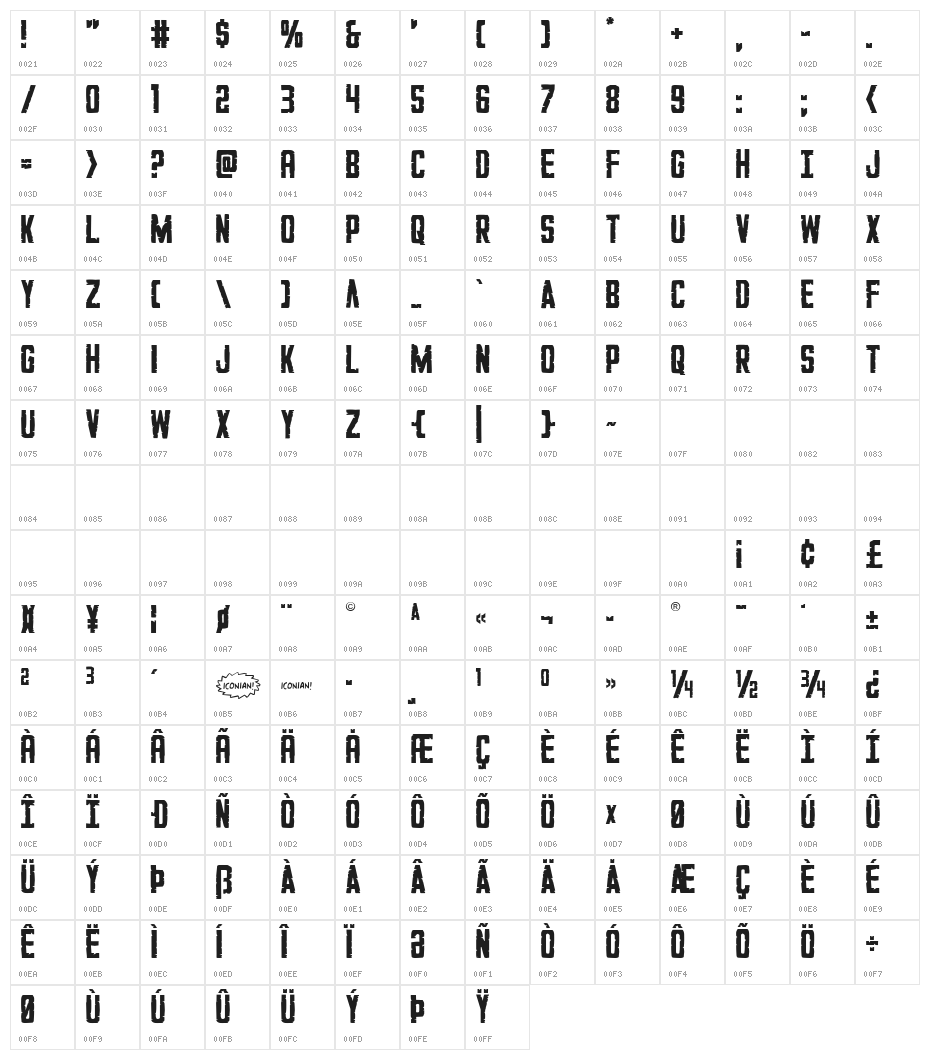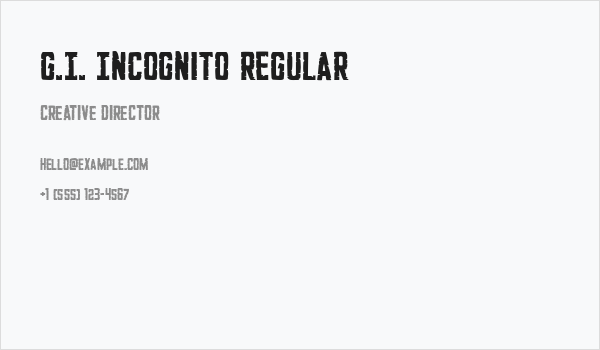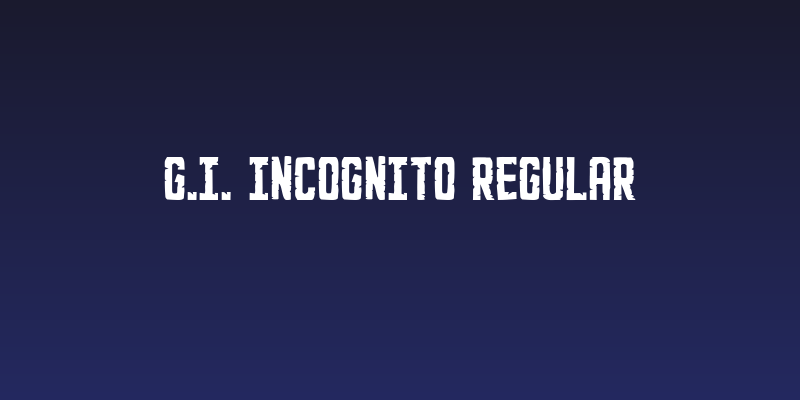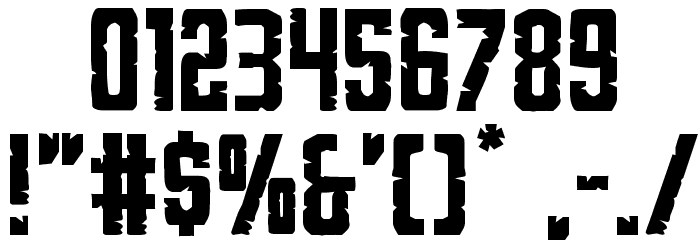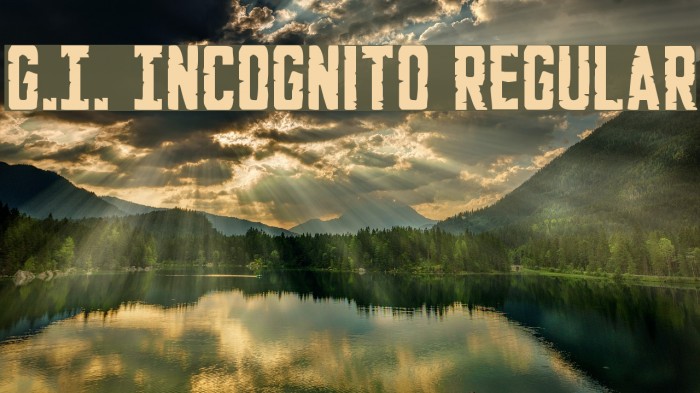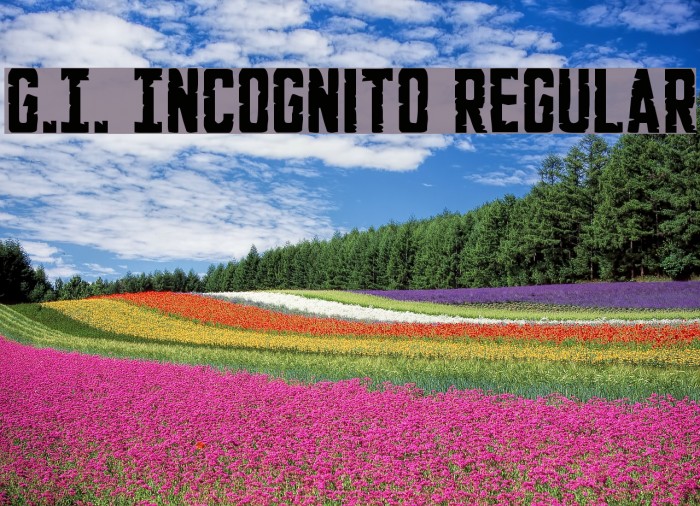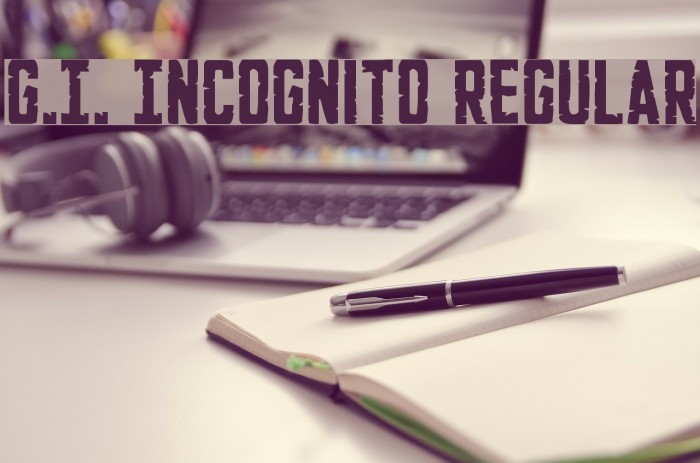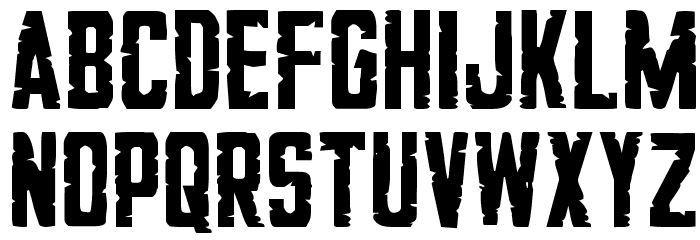
G.I. Incognito Regular Font
G.I. Incognito Regular Description
This font features a bold and rugged design, characterized by its distressed and eroded appearance. The uppercase letters are blocky and robust, with irregular edges that give a worn and weathered look. The numerals and special characters follow the same distressed style, adding to the overall gritty aesthetic. This font is perfect for projects that require a strong, impactful presence with a touch of vintage or industrial flair. Its unique texture makes it stand out, ideal for creating eye-catching headlines or logos.
| Overall Style | Vintage, Industrial |
| Proposed Projects | Ideal for posters, logos, branding, and any design needing a strong, vintage-industrial look. |